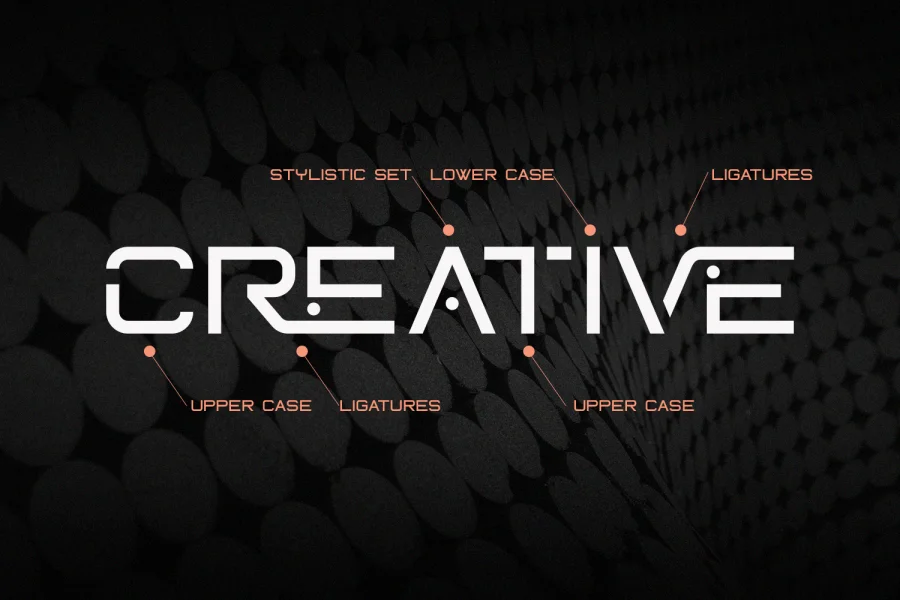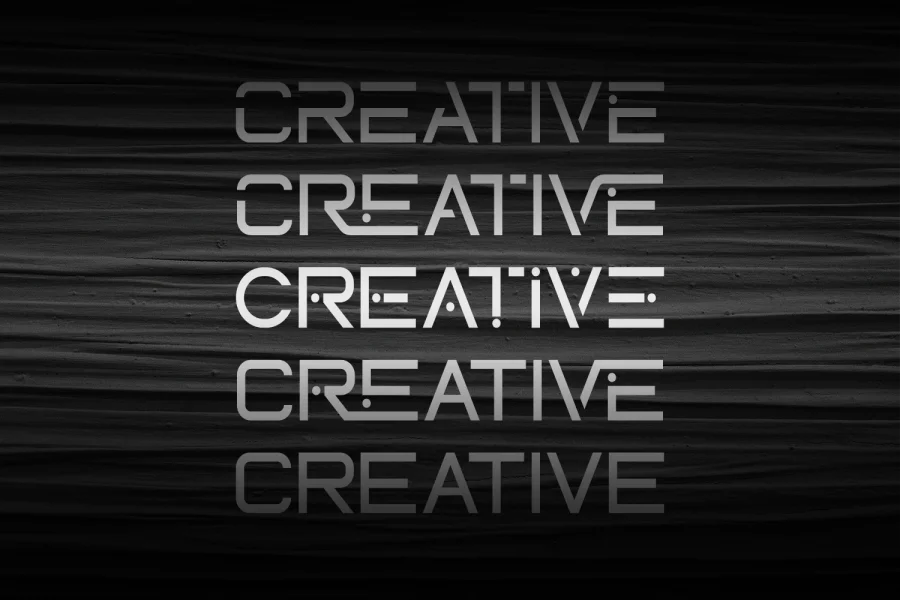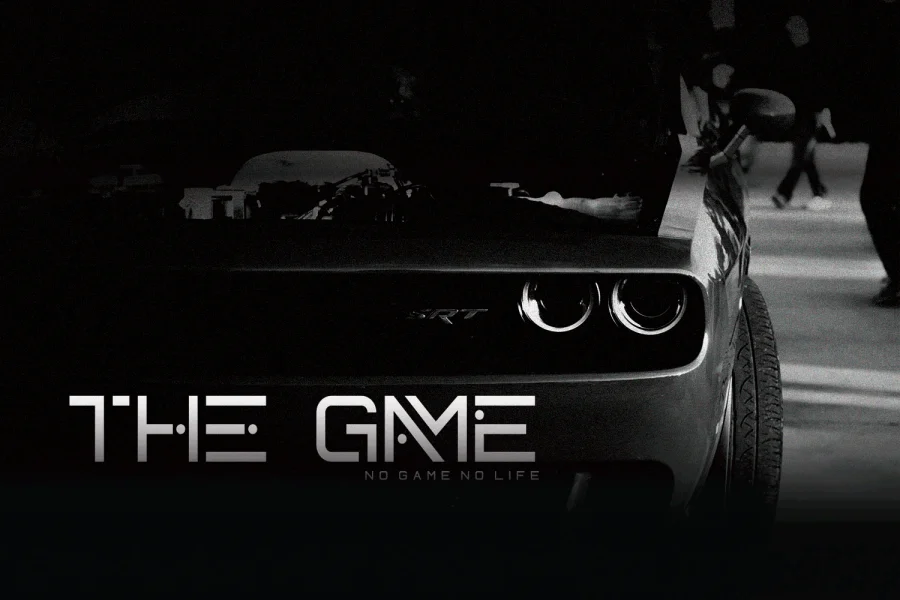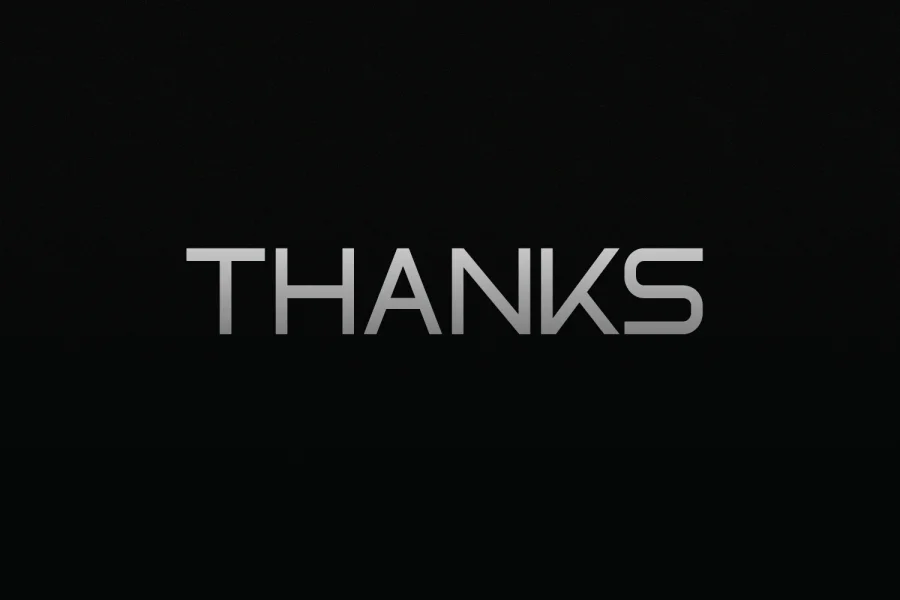
Netron Font Is a sans serif Font that has a futuristic feel, designed with minimal lines to keep it simple and artistic. This gives your text a modern smart effect. This font is equipped with ligature and alternative letters will be very good for your work such as posters, logos, magazines, covers, banners, t-shirts and headers, or even large scale artwork.